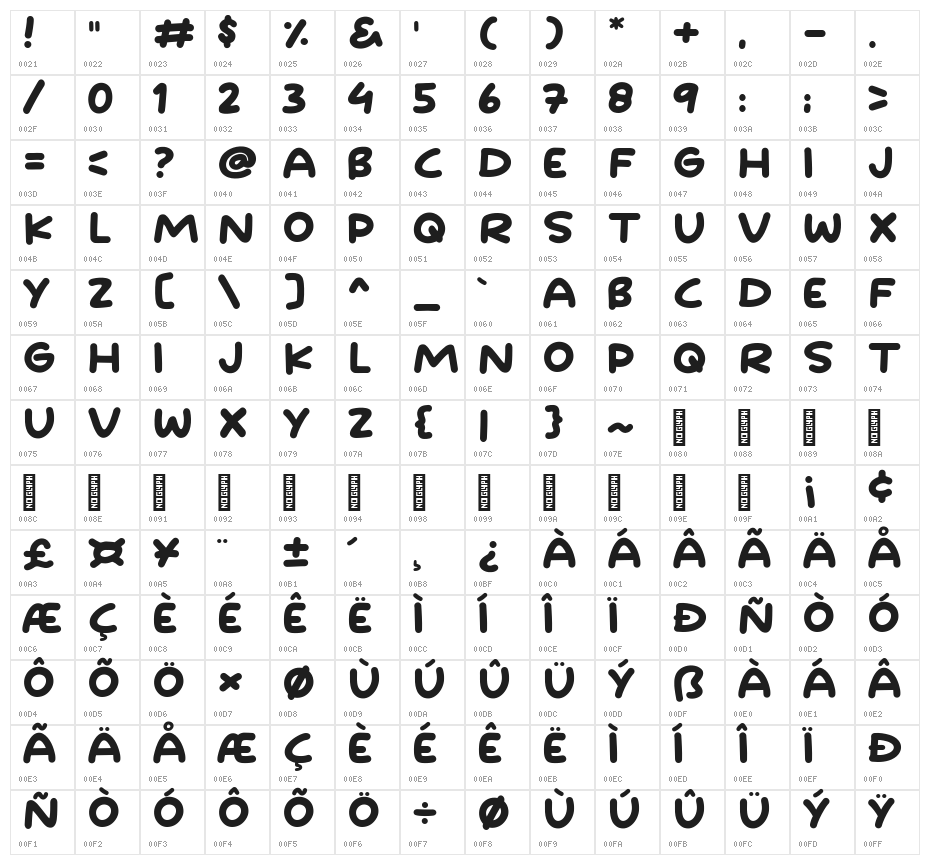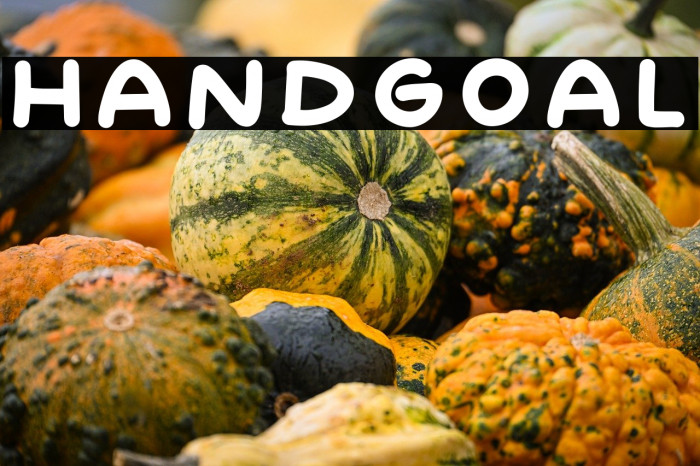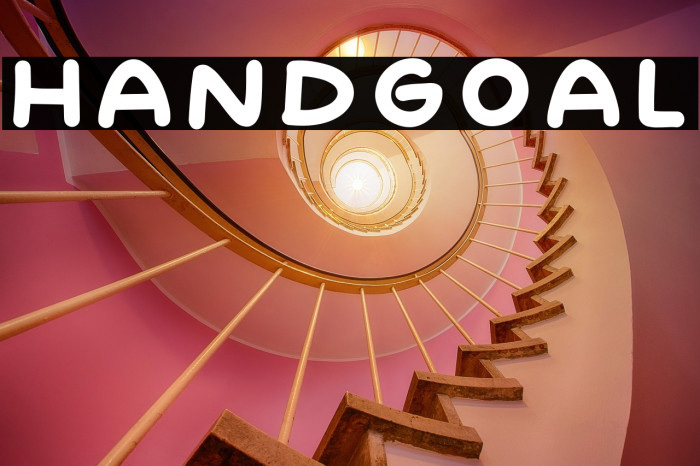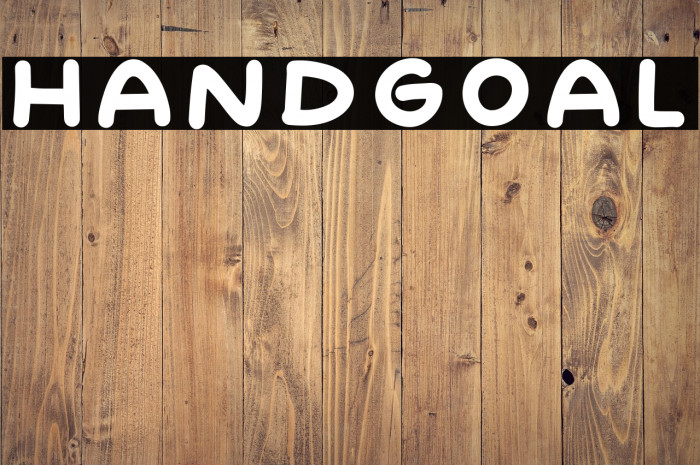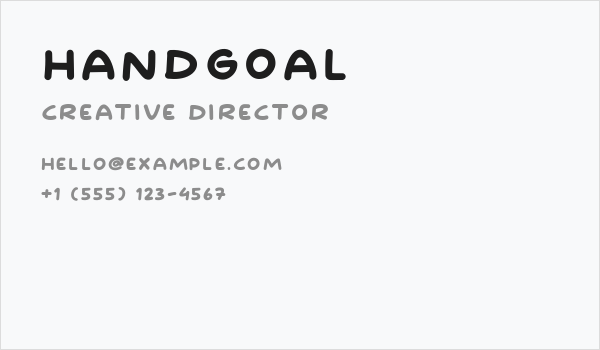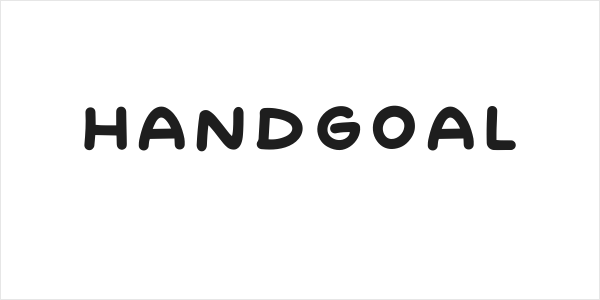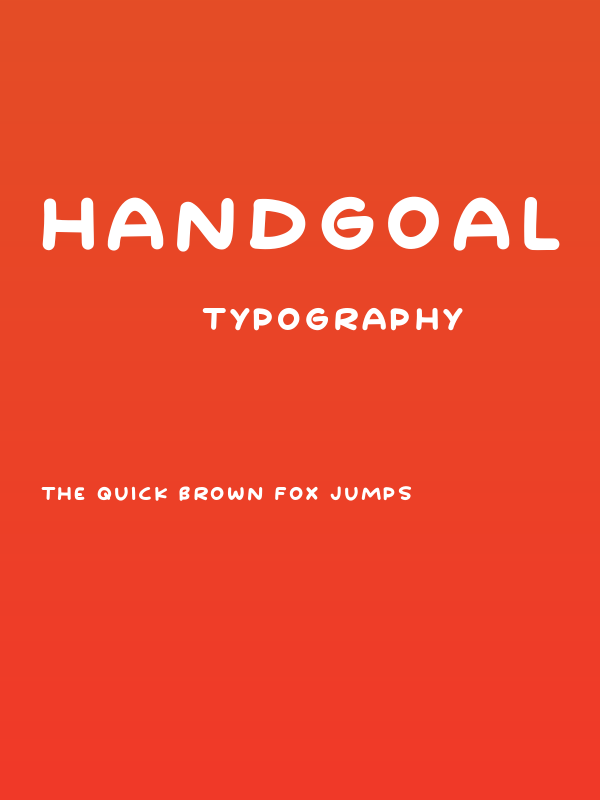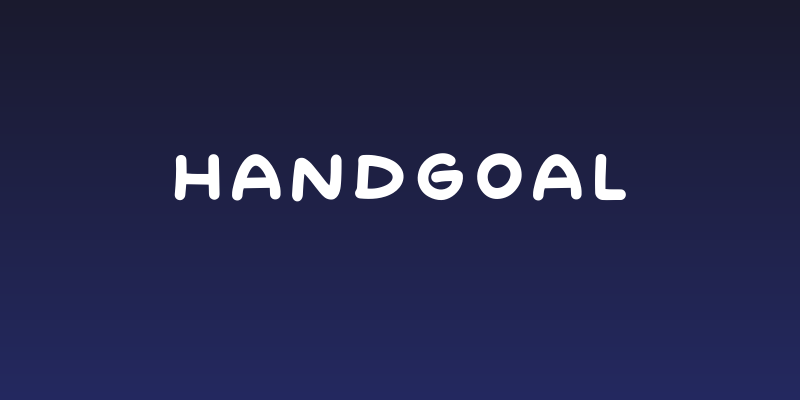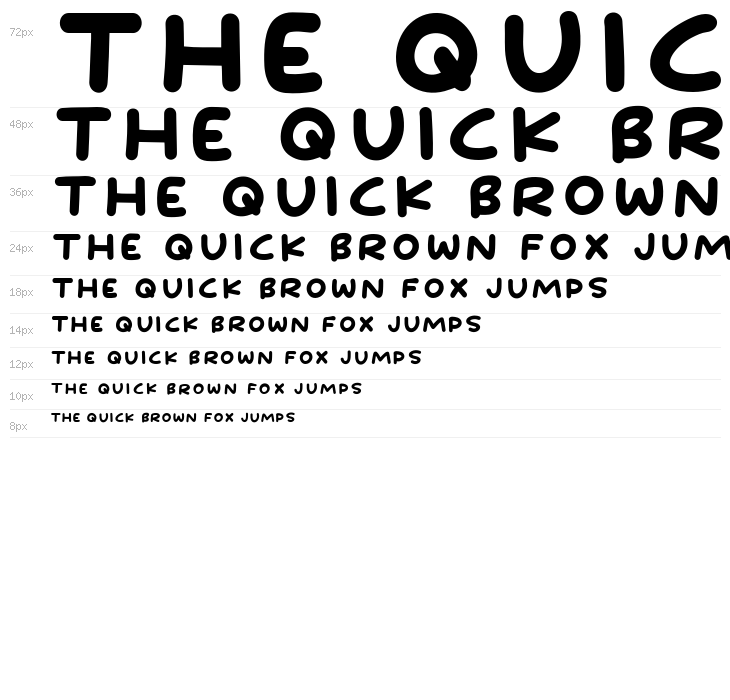
Handgoal Font
Handgoal Description
This playful and bold font features rounded, thick strokes that give it a friendly and approachable appearance. The characters are slightly irregular, adding a hand-drawn feel that enhances its charm. The uppercase and lowercase letters maintain a consistent style, with rounded edges and a uniform thickness throughout. The numerals and special characters follow the same design principles, ensuring cohesion across all elements. This font's unique style makes it stand out, while its legibility remains intact, making it suitable for various creative applications.
| Overall Style | Playful |
| Proposed Projects | Ideal for children's books, playful branding, greeting cards, and creative posters. |